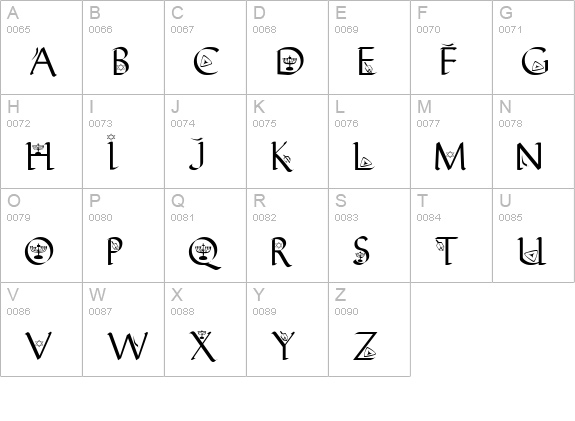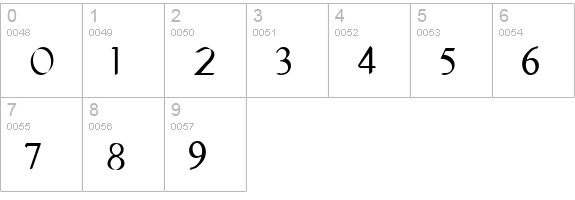
Clb:JewishHolidays Font Details
Clb:JewishHolidays font is a beautifully crafted typeface designed to bring a touch of elegance and tradition to your design projects. With its intricate details and unique charm, this font is perfect for adding a special touch to any text related to Jewish holidays and celebrations. What makes Clb:JewishHolidays font even more appealing is that it is completely free to download at FontsMarket.com. Yes, you read that right - you can enhance your designs with this stunning font without spending a dime. So why wait? Download Clb:JewishHolidays font today and bring a touch of Jewish heritage to your creative works!